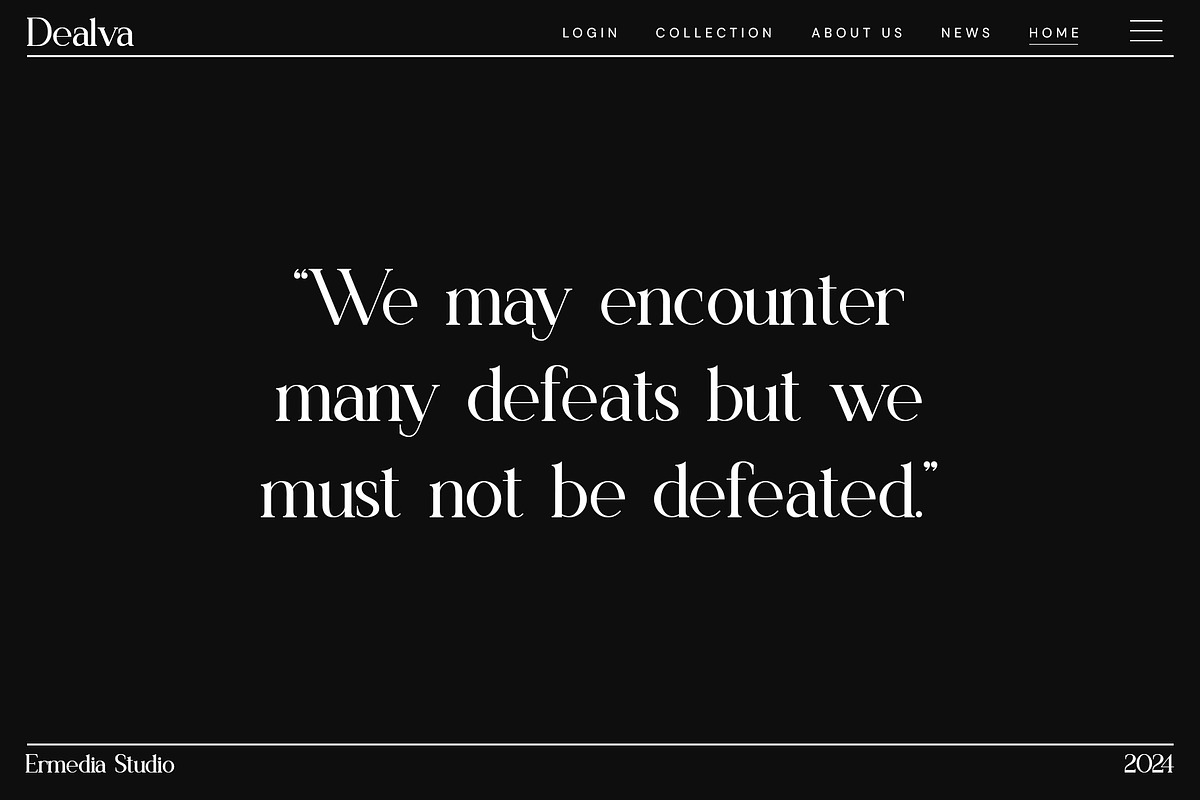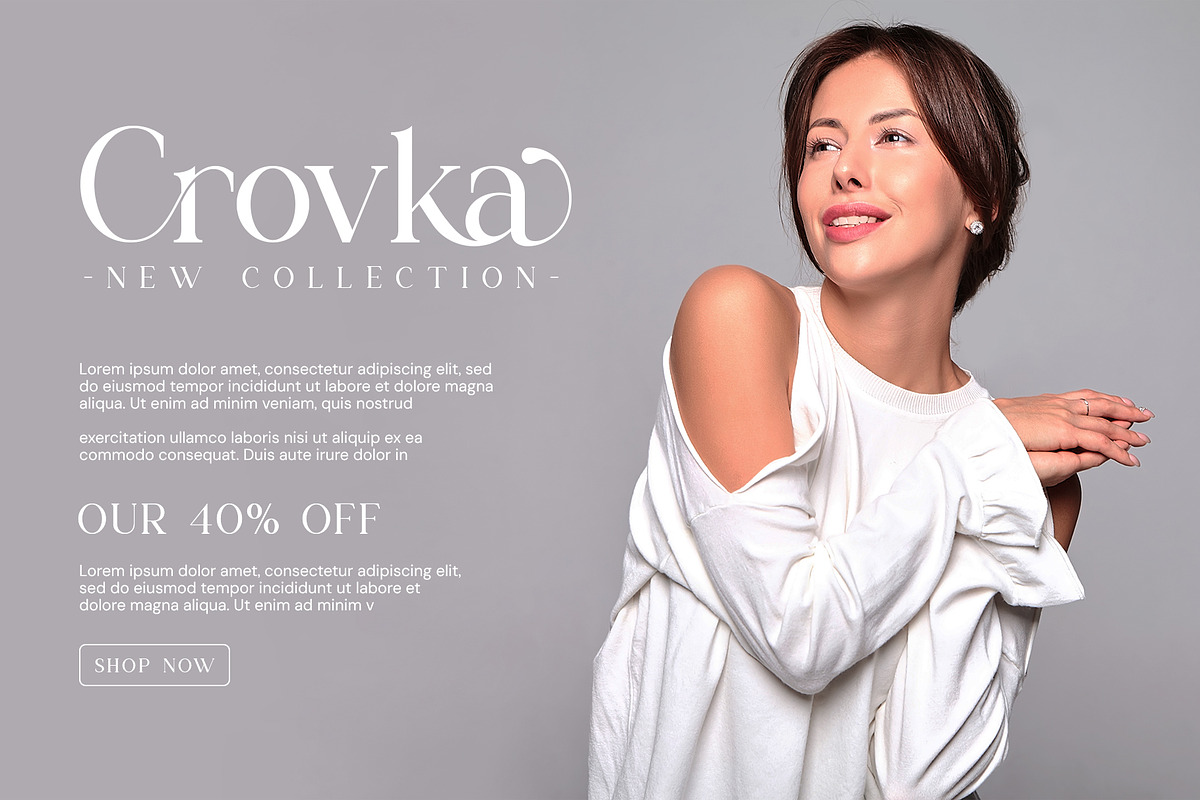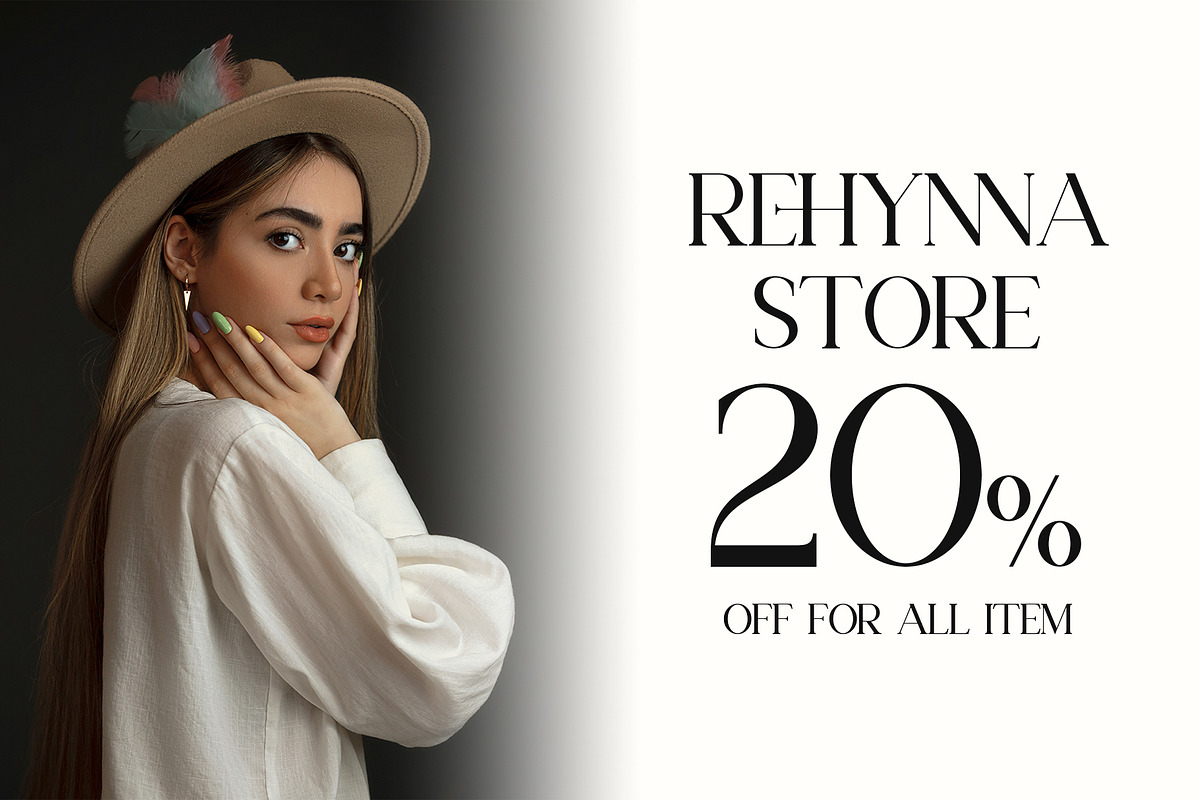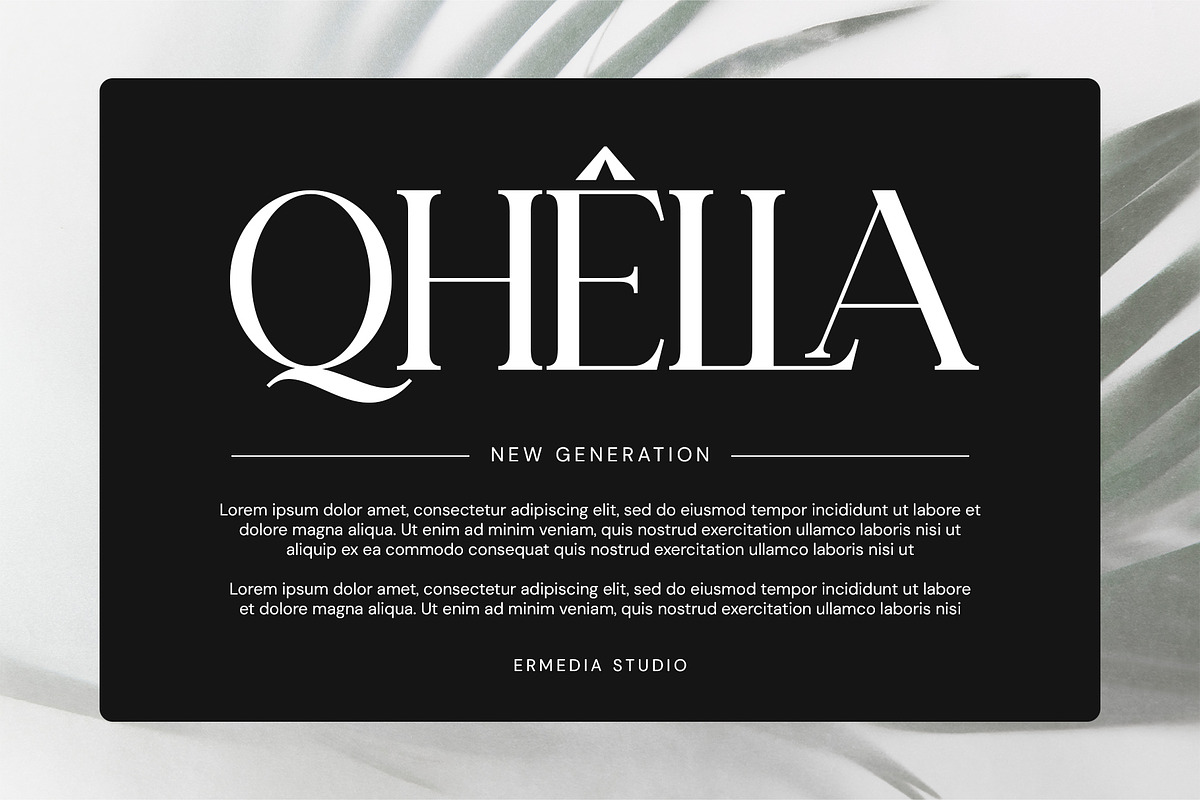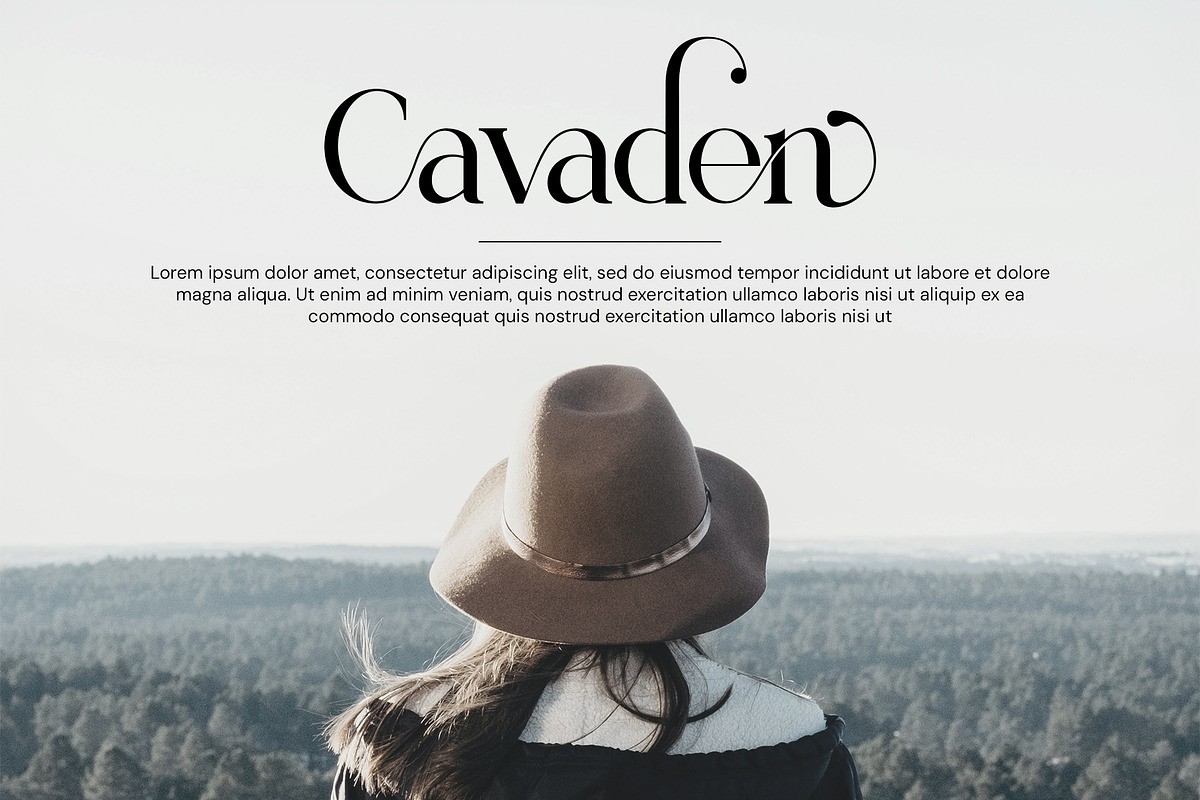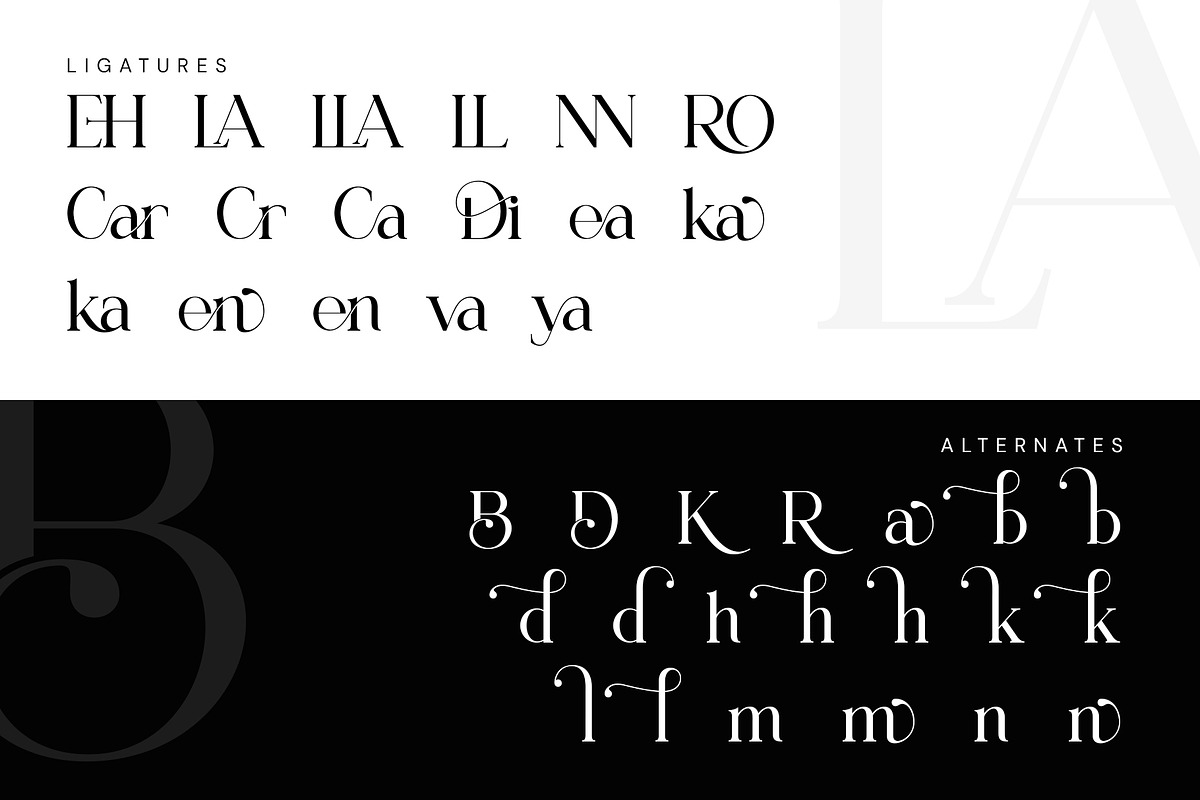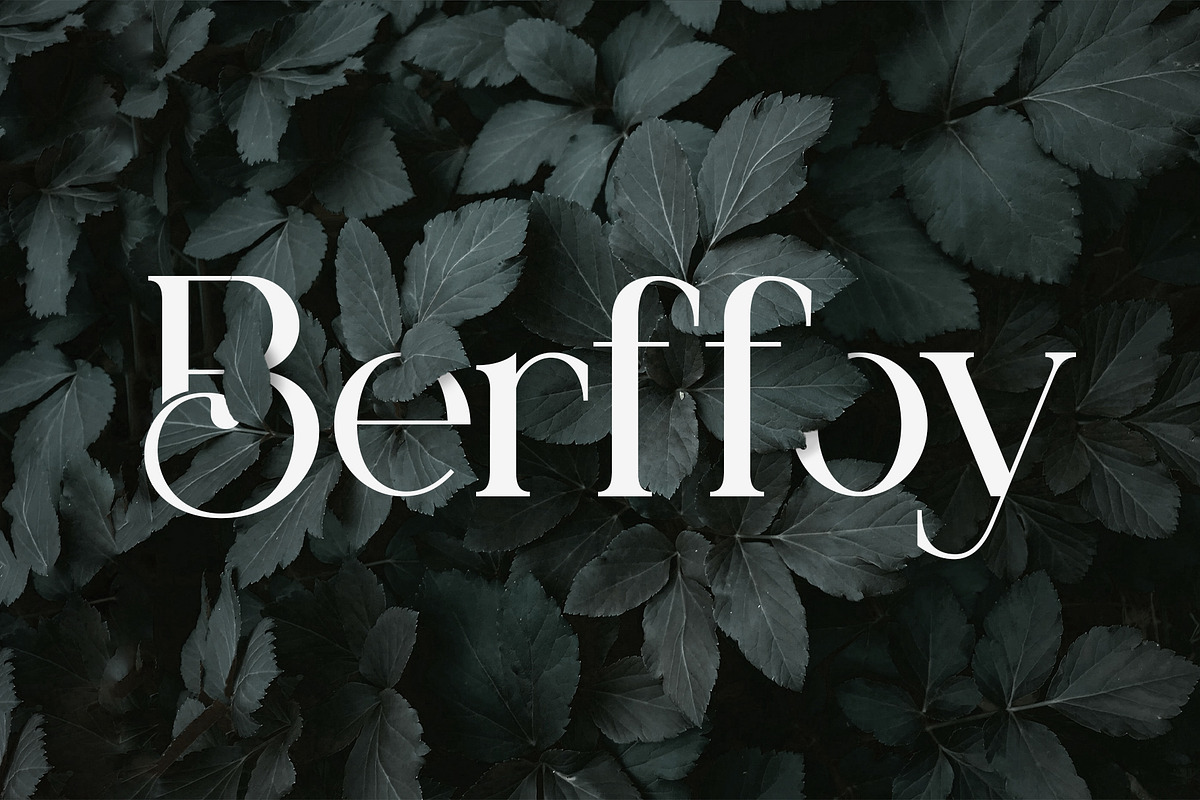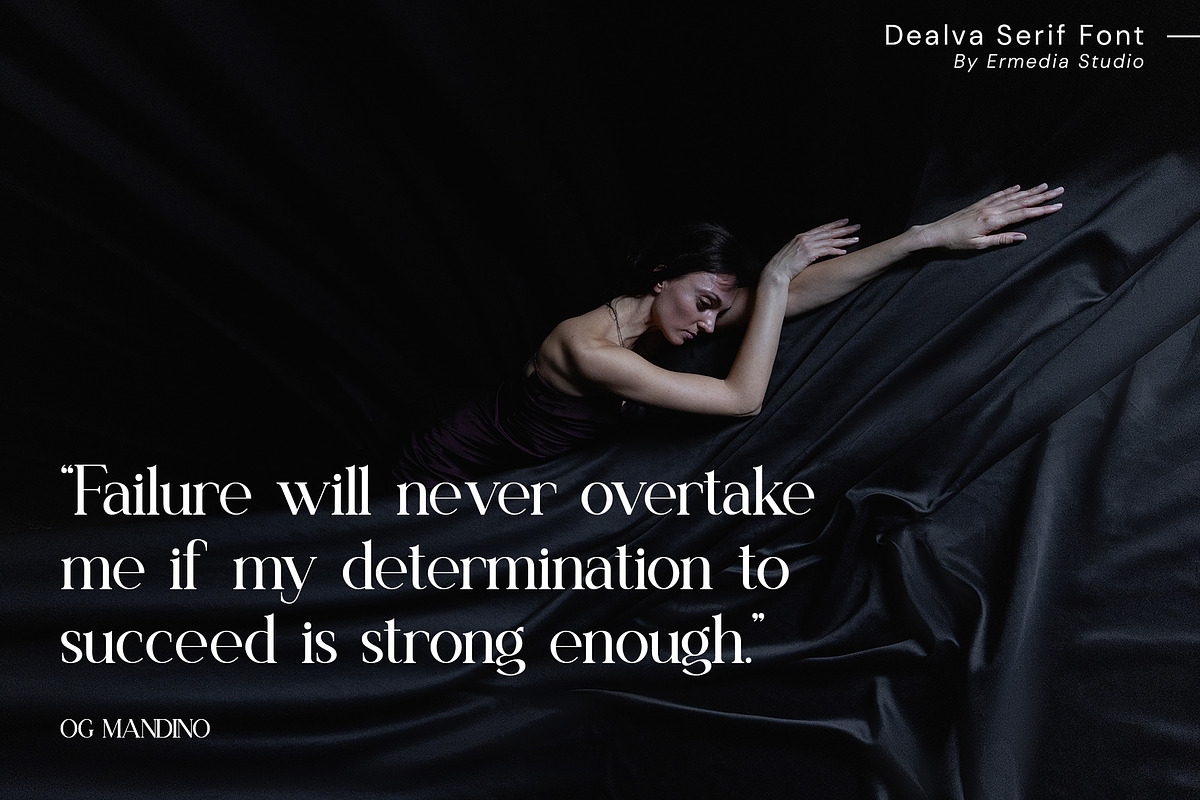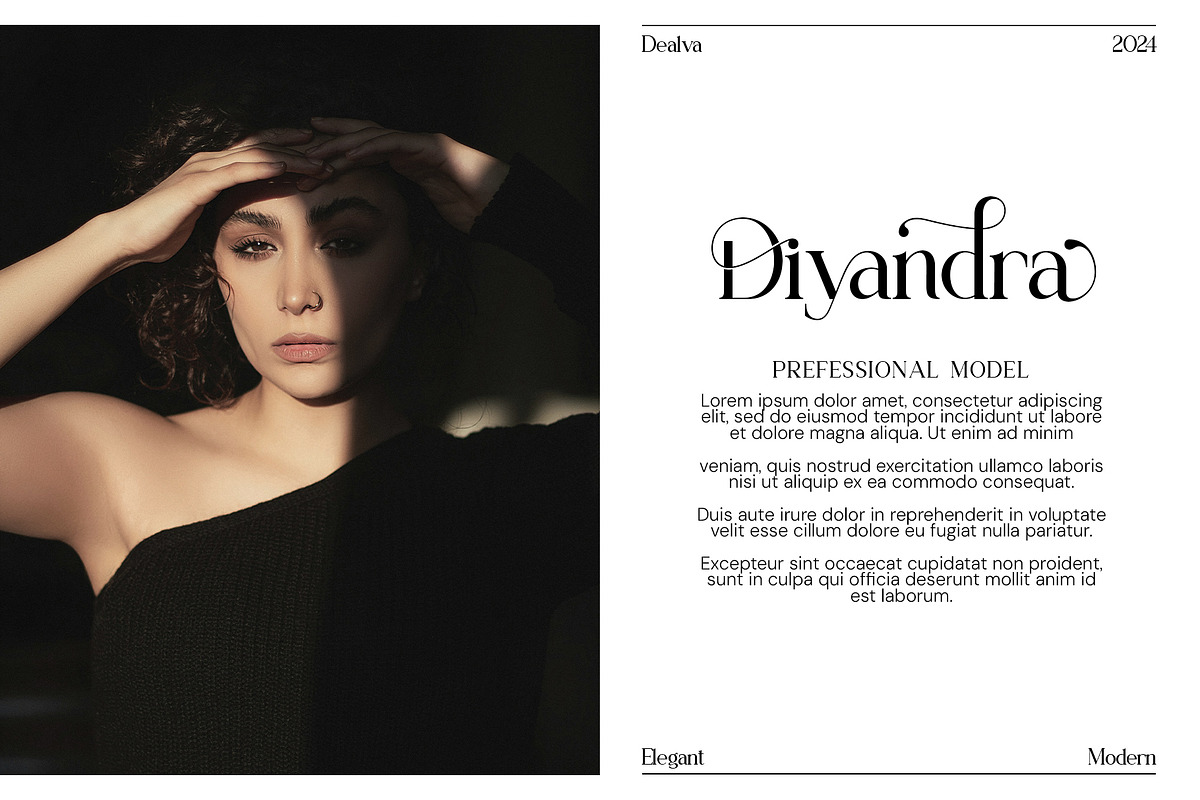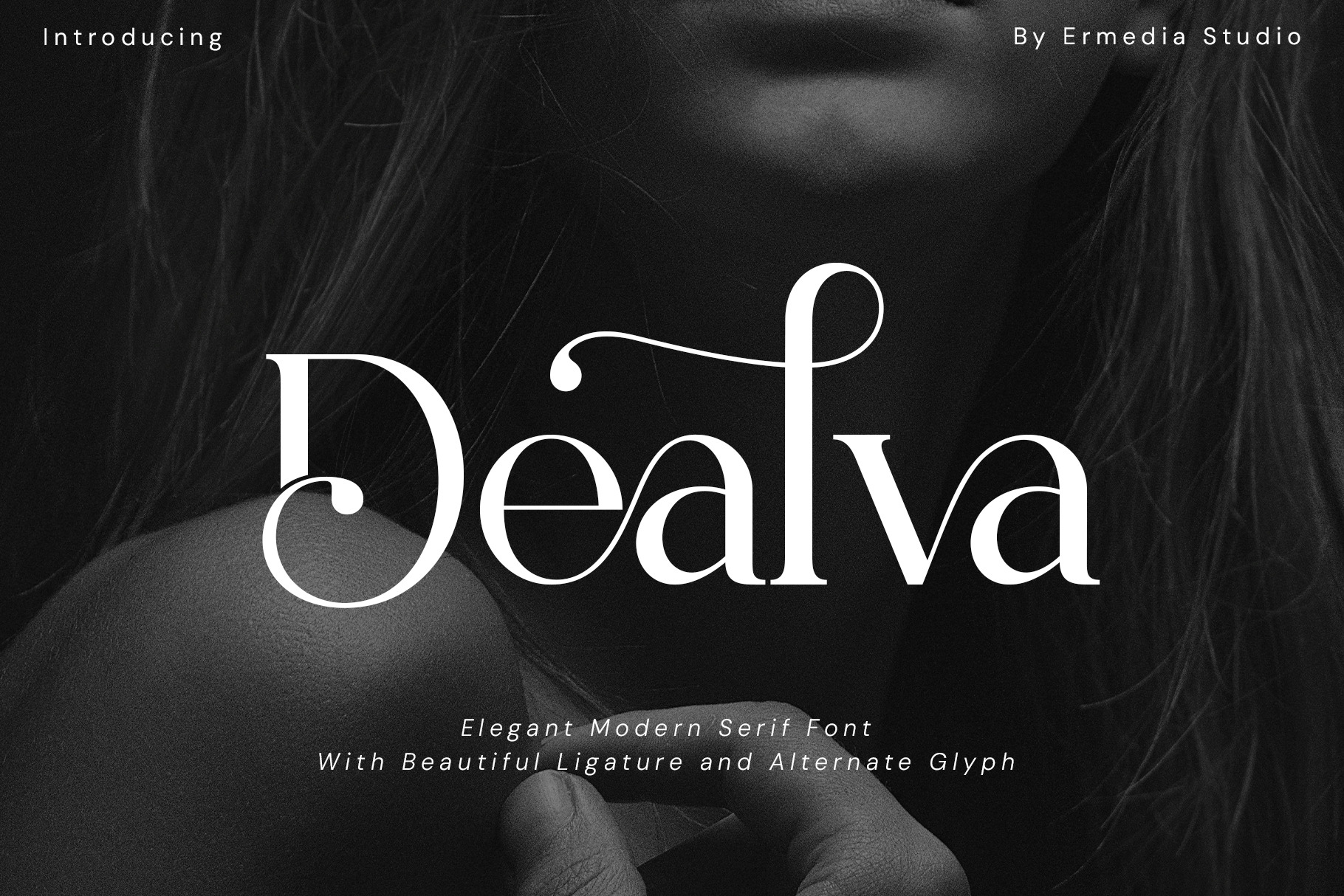
Dealva | Serif Font
Introducing Dealva Serif Font: is a modern, trendy, elegant and stylish serif font. It has a unique character. It is perfect to be combined with invitation card designs, company logos, movie titles, movie names, business cards, book titles, brand names and various other designs. Dealva Serif Font: is a modern, trendy and elegant serif font. This charming and stylish font makes it a perfect partner for any project.